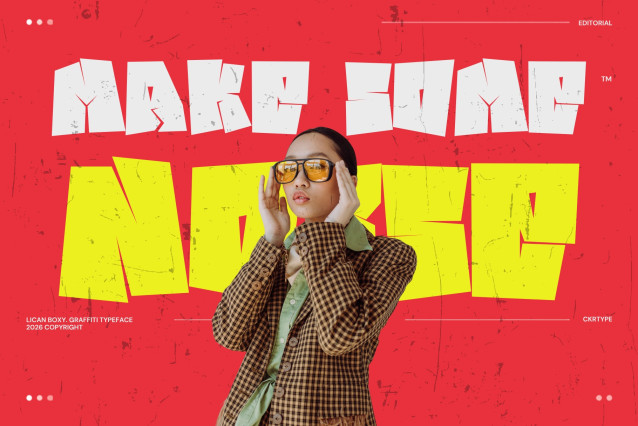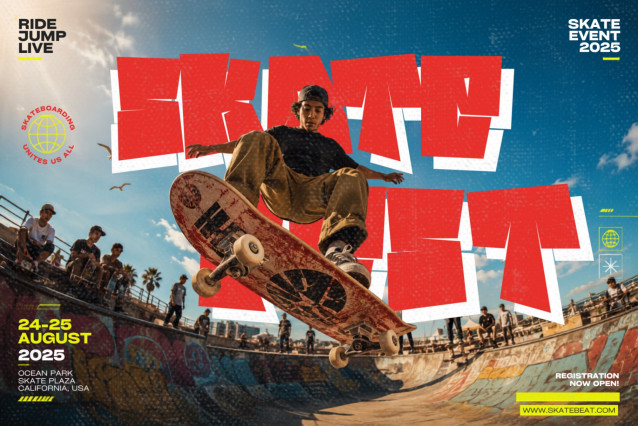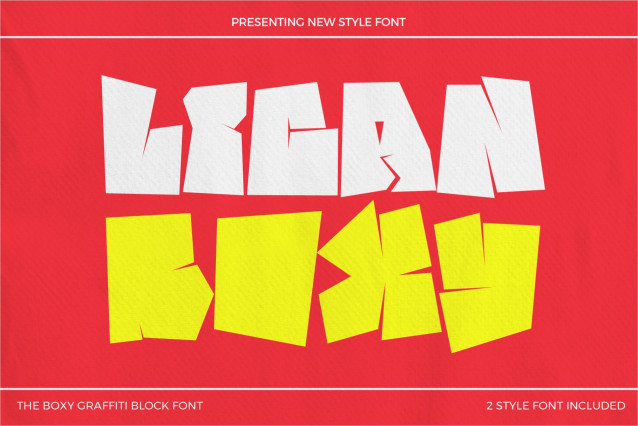
Lican Boxy – Block Graffiti Font
Lican Boxy is a bold and modern graffiti font that combines strong block lettering with authentic urban street culture. Designed for creators who want clean geometry without losing the rebellious spirit of graffiti, this block graffiti font delivers powerful visual impact for every creative project. Whether you’re building a streetwear brand, designing album artwork, creating posters, or producing social media content, Lican Boxy graffiti font gives your typography a bold, confident, and unmistakably urban identity.
Inspired by classic block-style graffiti seen throughout metropolitan streets, Lican Boxy features thick letterforms, balanced proportions, and a structured appearance that makes every headline impossible to ignore. This urban graffiti font is built for designers who need typography that remains readable while still expressing authentic street culture.
Unlike highly decorative graffiti lettering, Lican Boxy graffiti font focuses on strong silhouettes and geometric construction. The result is a professional graffiti display font that works equally well for commercial branding and creative personal projects.